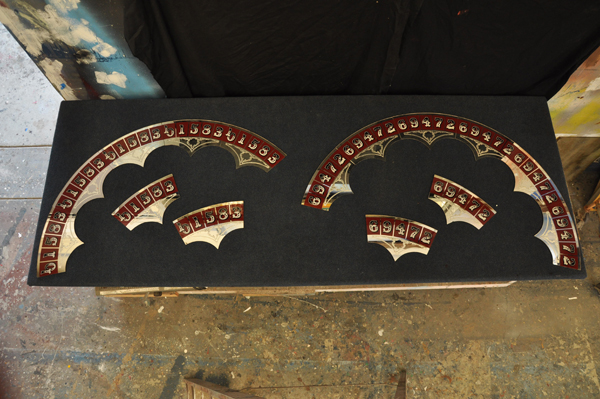
Wheel of Fortune
Thanks to my good friend and fellow glass sign gilder John Studden for giving me the opportunity to recreate a complete set of reverse glass pieces for a wheel of fortune. It was a really fun project to do.
Yes I also cut the glass. I forgot to post that I really liked your last glass sign you made. very nice work.
Those turned out really nice! A man in your position has to be handy with either a quill or a glass scribe.
These look great Rod and I can see why you enjoyed making them,they look very period panels....
It's fun to see a project come to life but kind of sad when their done and gone.